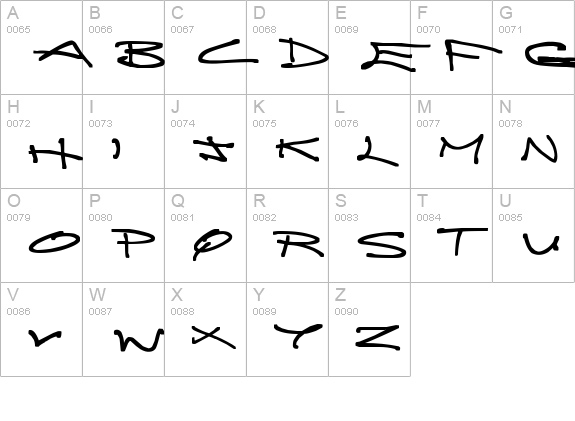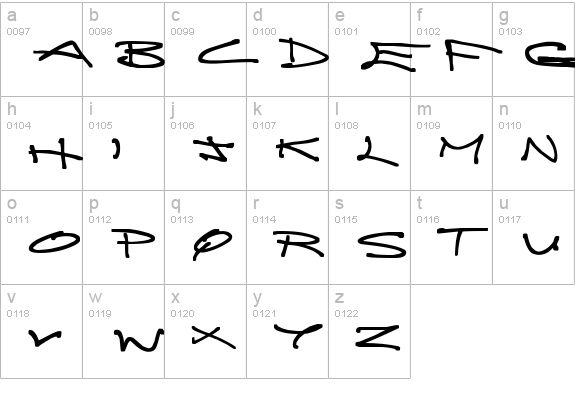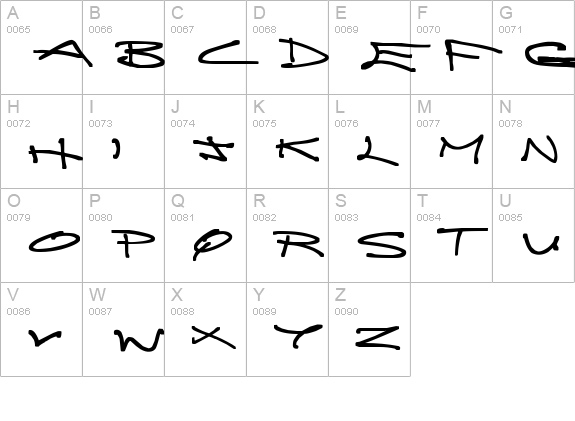
Brainless Thoughts Font Details
Brainless Thoughts font is a whimsical and playful typeface that is perfect for adding a touch of creativity to any design project. With its quirky characters and unique style, this font is sure to make your text stand out. Whether you're working on a poster, logo, or website design, Brainless Thoughts will add a fun and lighthearted touch to your work. What's even better is that Brainless Thoughts font is available for free download at FontsMarket.com. This means you can easily access and use this font in your projects without any cost. So go ahead and unleash your creativity with Brainless Thoughts font today!